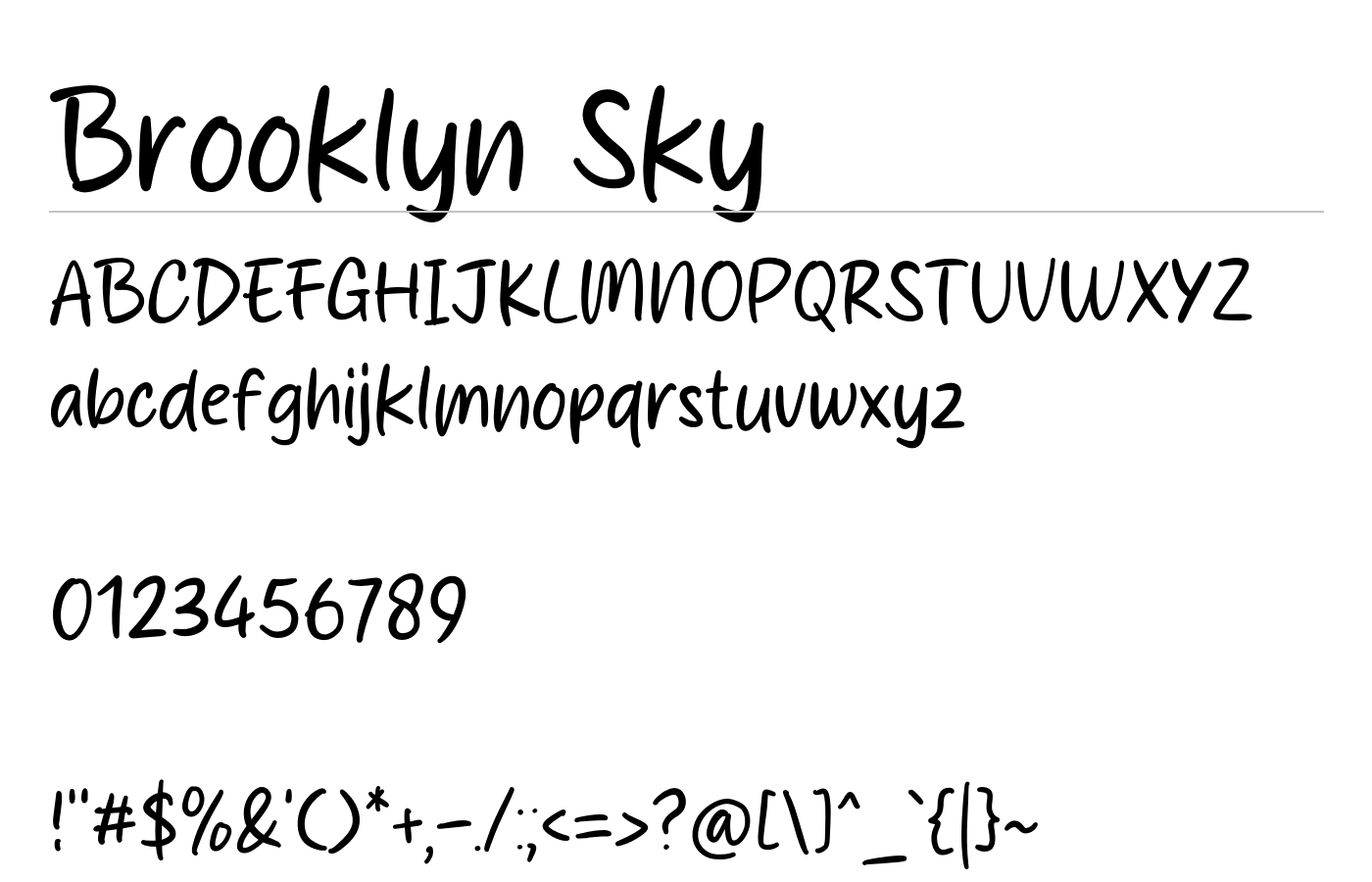
Brooklyn Sky is a lively, casual handwritten sans serif font with a friendly and approachable personality. Its smooth, slightly irregular strokes and moderate x-height give it an informal, yet legible feel, making it perfect for creative projects, branding, and fun editorial uses. This font works well in headlines, logos, and packaging where a personable and dynamic touch is desired.
Brooklyn Sky Font
About Brooklyn Sky Font